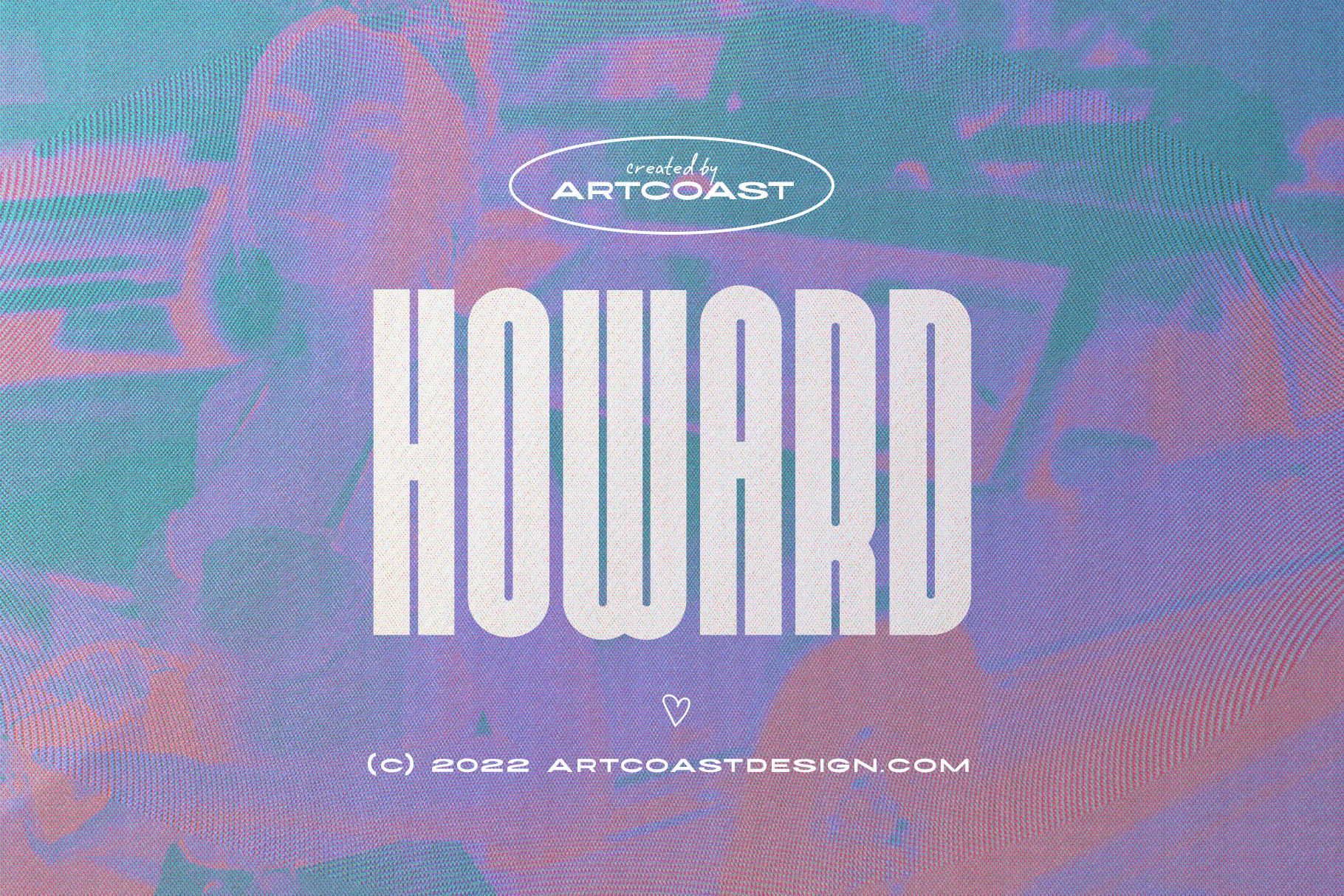
Howard Ultra Condensed Sans Font
Howard is an ultra-condensed, all-caps sans serif font designed for bold headlines in tight spaces. Its tall, geometric letterforms create a strong vertical rhythm while keeping layouts clean and readable.
BEST FOR
Posters and editorial headlines
Magazine covers and layouts
Logos, packaging, and branding
Invitations, cards, web headers, and large-format artwork
Use Howard when a project needs compact width, modern structure, and a confident display voice. It is designed as an all-caps typeface.